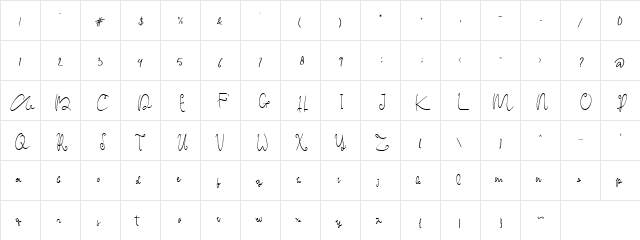
zaline Regular Font Preview
zaline Regular
zaline Regular Font Details
Design Context for zaline Typeface
zaline takes a measured approach to typography — its balanced proportions and neutral character make it a reliable workhorse for both digital and print work.